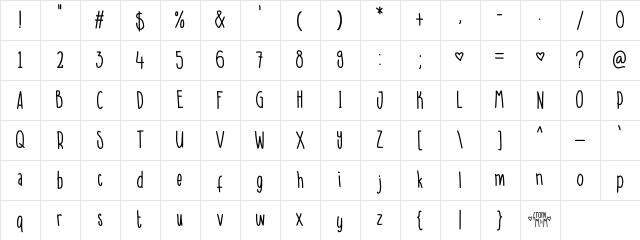
Complete A Day in September Regular glyph index. Displaying only characters natively supported by A Day in September Regular font.
A Day in September is a composed and adaptable typeface that performs quietly and consistently across a wide range of design contexts.